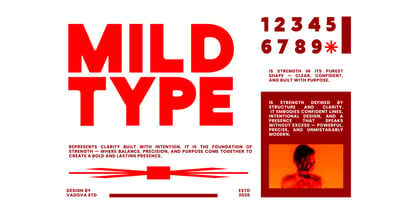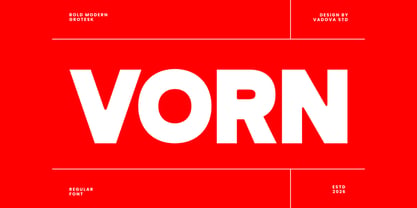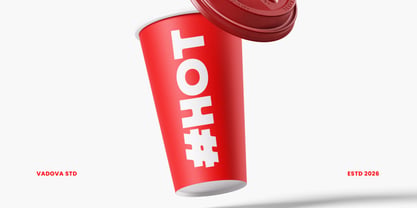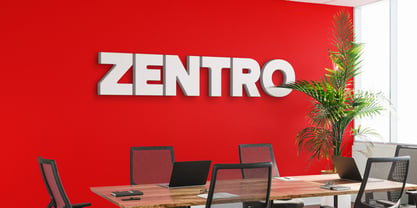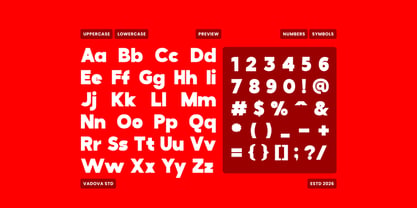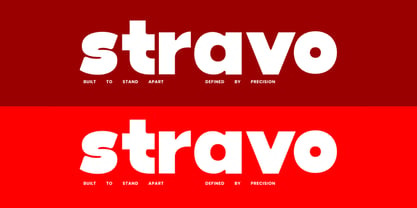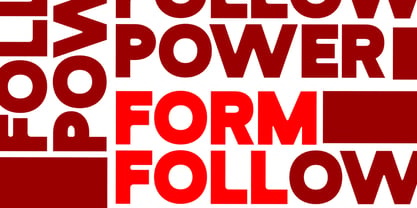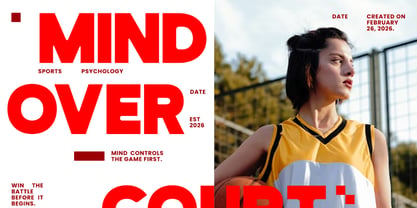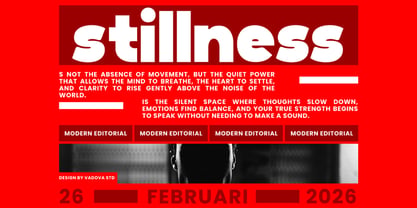
Vorn
by Vadova Std
Vorn is a bold modern grotesk sans serif typeface designed with strong geometric structure and impactful proportions. The letterforms feature thick strokes, compact shapes, and clean terminals that create a powerful visual presence in editorial and branding layouts. Vorn is designed for bold editorial and branding projects that require strong visual impact and modern typographic clarity. Its heavy grotesk structure works well for posters, magazine headlines, brand identities, advertising campaigns, packaging design, and digital layouts where confident and contemporary typography becomes the central visual element.